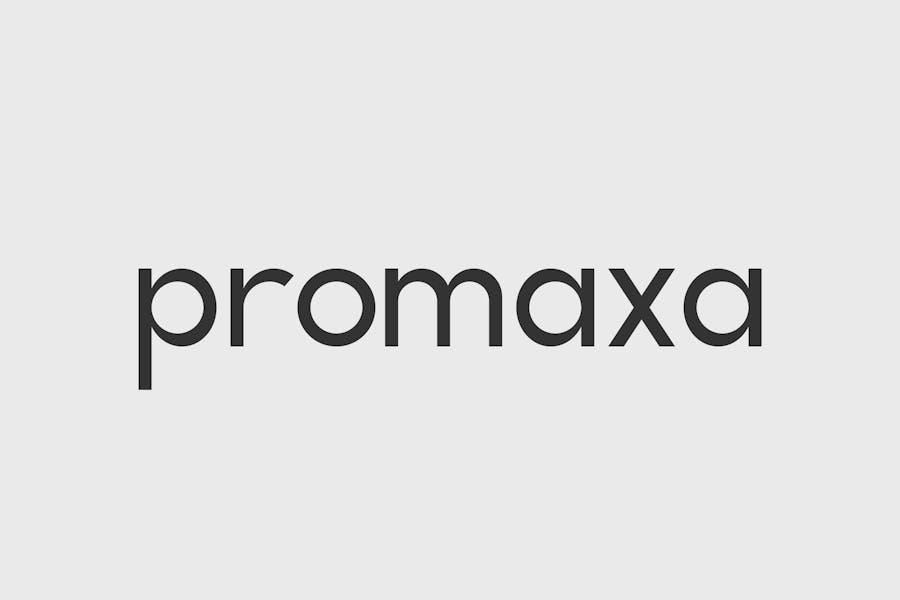
Promaxa Font
Promaxa is a sans-serif font – Great for using as logos and other branding projects, travel, magazine formatting, beauty, product using, quotes and just as a sort of decorative text placed on top of any image background possible.
Promaxa Sans Serif Font